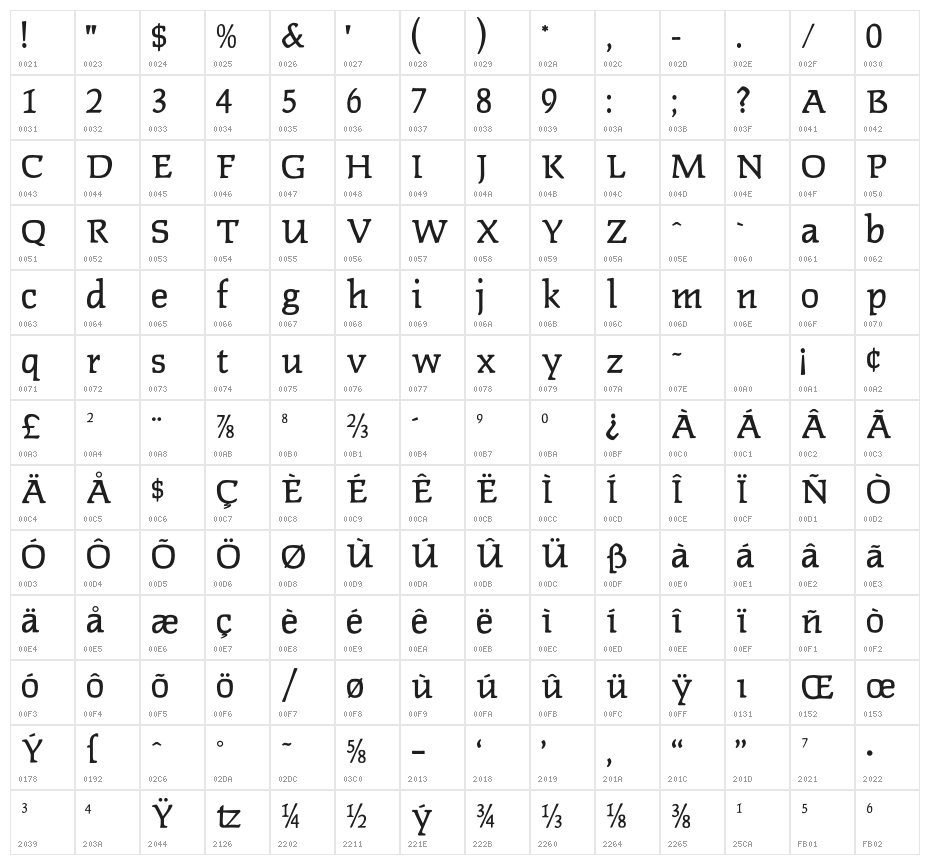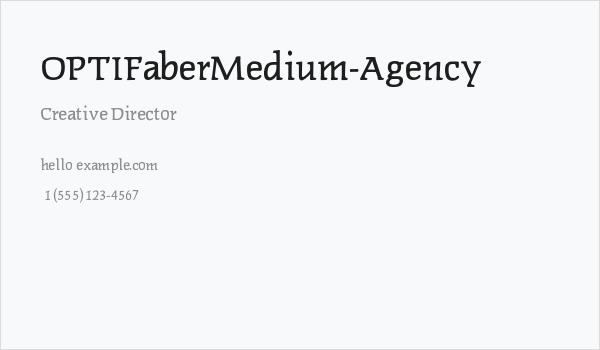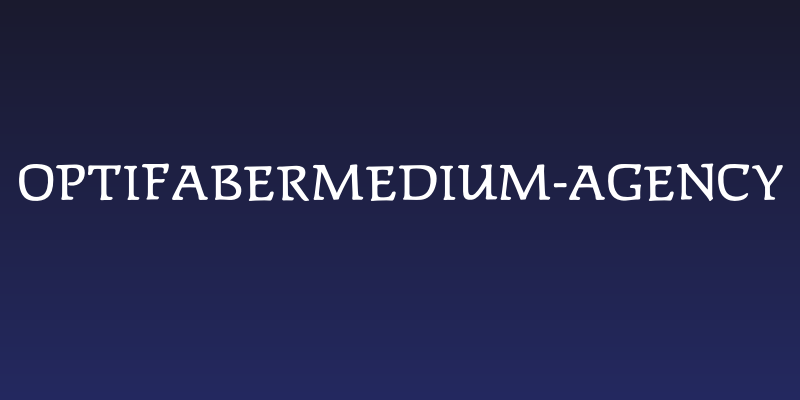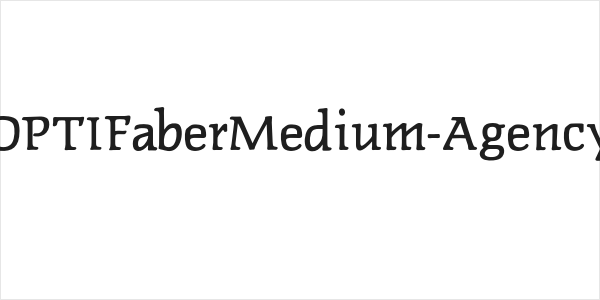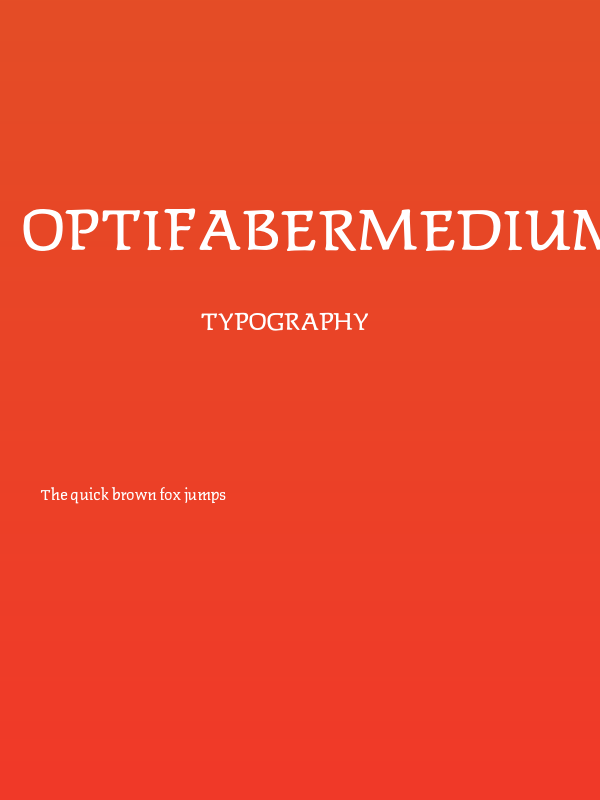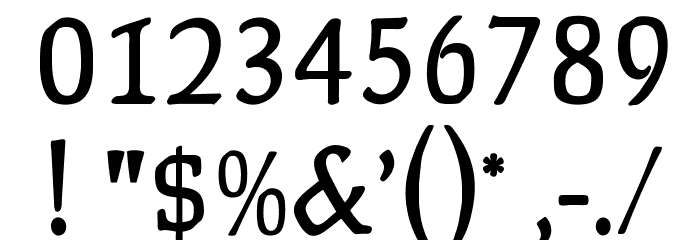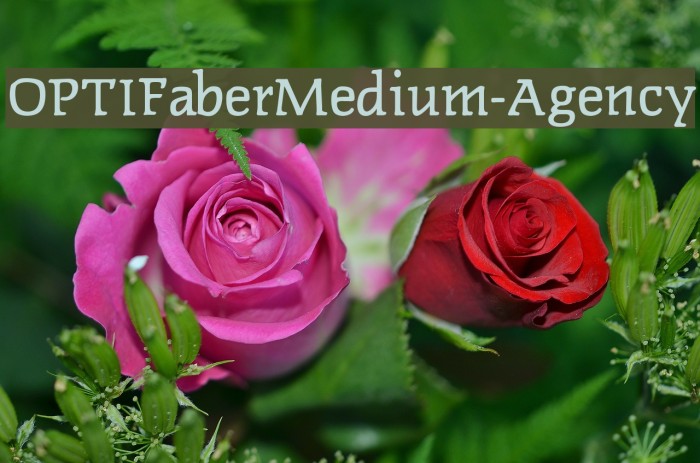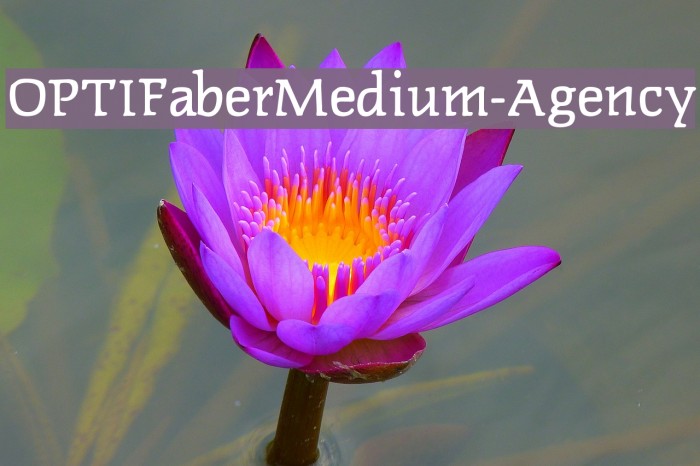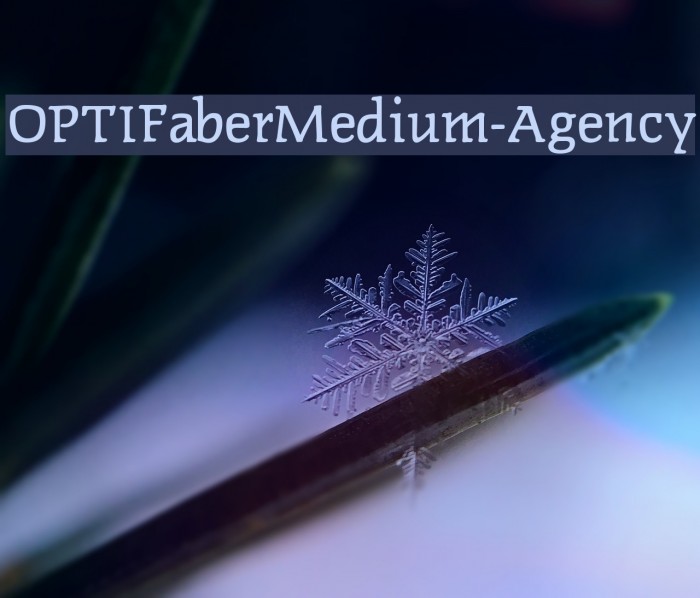
OPTIFaberMedium-Agency Font
✎ Serif
OPTIFaberMedium-Agency Description
This font features a unique blend of traditional and modern elements, characterized by its distinct serif style. The uppercase letters exhibit a strong presence with slightly flared serifs, while the lowercase letters maintain a consistent flow with rounded edges. The numerals are clear and legible, designed to complement the overall aesthetic. Special characters are thoughtfully crafted, ensuring versatility across various applications. The font's medium weight provides a balanced appearance, making it suitable for both display and text purposes.
| Overall Style | Classic |
| Use Case | Headlines, Body text, Logos |
| Proposed Projects | Ideal for editorial design, book covers, branding projects, and sophisticated advertising campaigns. |